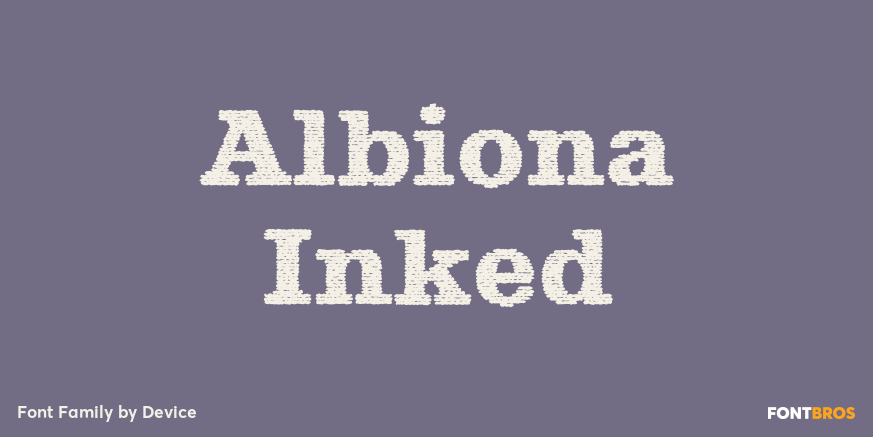
Albiona Inked
About Albiona Inked
Albiona Inked is a vintage distressed version of Albiona that evokes the urgency of teletext printers, typewriter ribbons and authentic hot-metal type on rougher paper. A contemporary slab-serif, it revisits aspects of Robert Besley\’s classic Clarendon,…